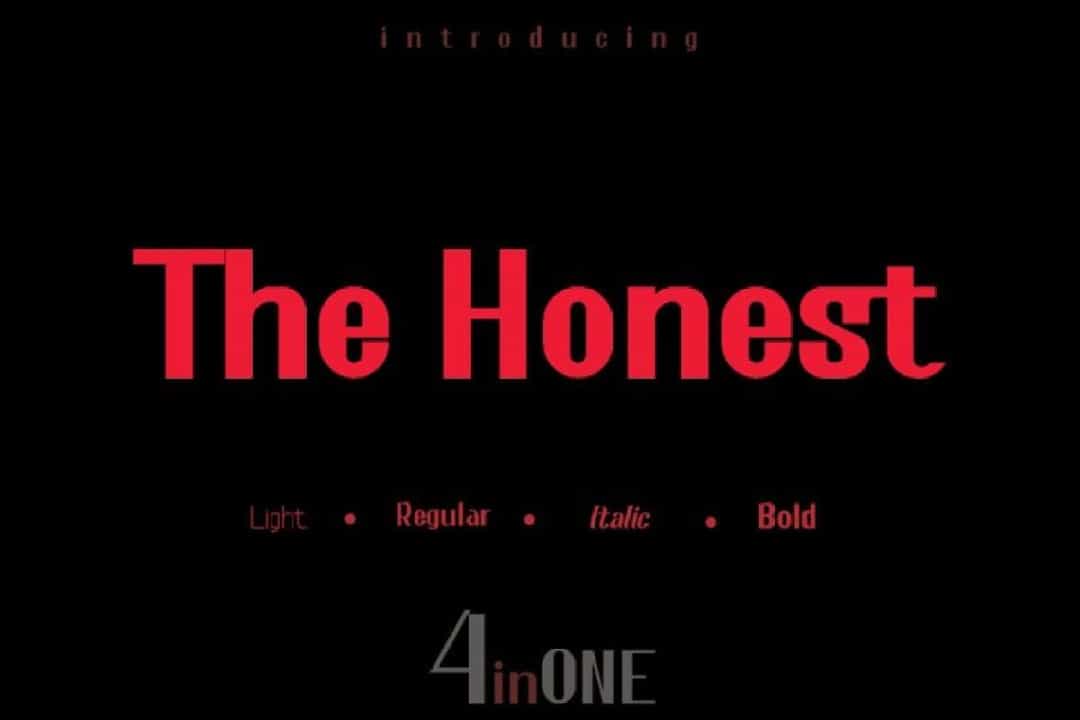
Honest is a versatile typeface of today’s age, modern and strong sans serif font with harmonious blend of both delicate lines and sharp corners suited for logo, branding movie title, magazines, posters, websites and many more.